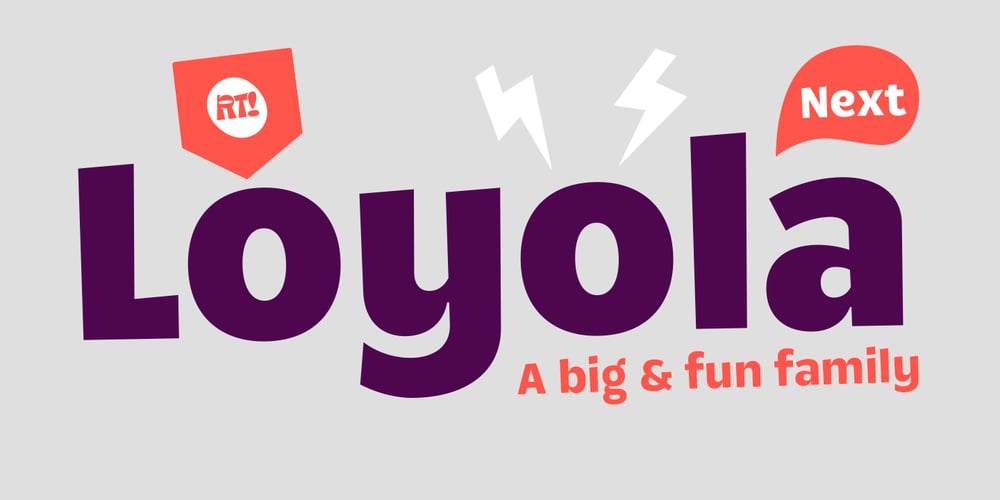
Loyola Next Font Family was designed by Rodrigo Araya Salas, Bruno Jara Ahumada and published by RodrigoTypo. Loyola Next contains 14 styles and family package options. Loyola Next – the new version of Loyola “the previous year” – is a geometric typographic family with an organic touch. Contains 14 fun variants, Loyola is a perfect typeface for posters, packaging, logos and any visual communication application inherent to children and youth designs.